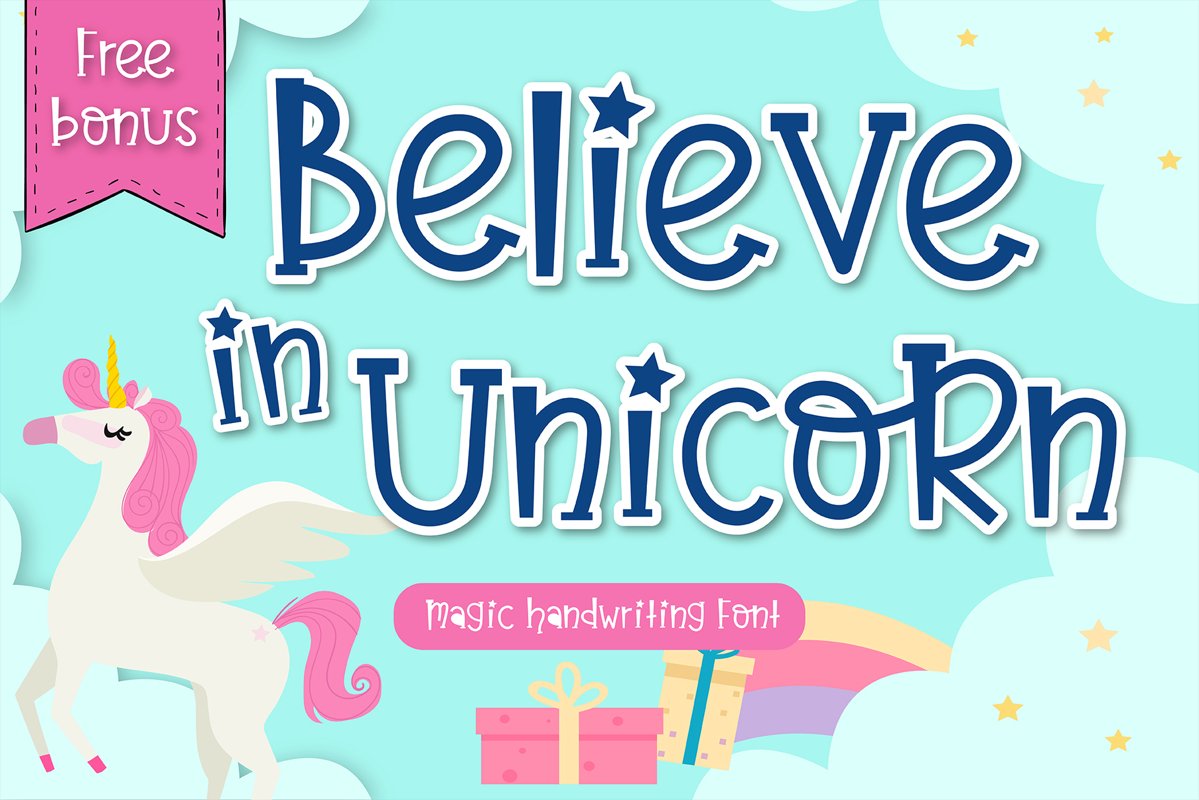
Believe in unicorn Handwriting- cute kid font Kawaii style!
Believe in unicorn Handwriting- cute kid font Kawaii style! Magic Font
Are you looking for cute Handwritten font for your project? Then you have come the right land!!
This Font is perfect for kid greeting card, Print t shirt, fashion artworks or just play around. Festival like Valentine's Day, Kid's Party, wedding, baby shower!!